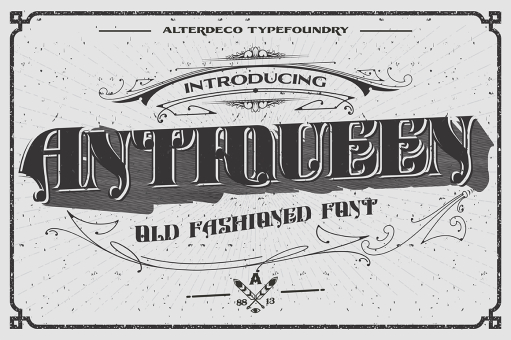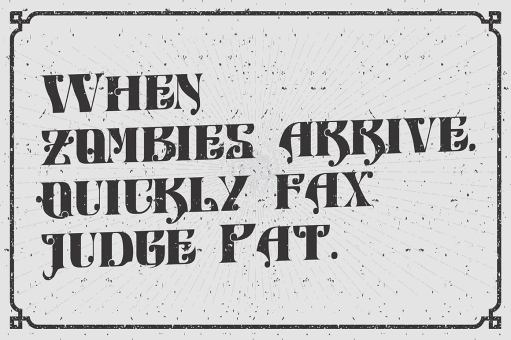
Antiqueen Typeface
Antiqueen typeface, it's an old fashioned custom font, inspired by old victorian typographic designs, sign paintings. it's perfect to create a vintage typography designs, t shirt designs, vintage logotype, etc. it's come with both ttf and otf version. please contact me if you have issue on this font... thanks